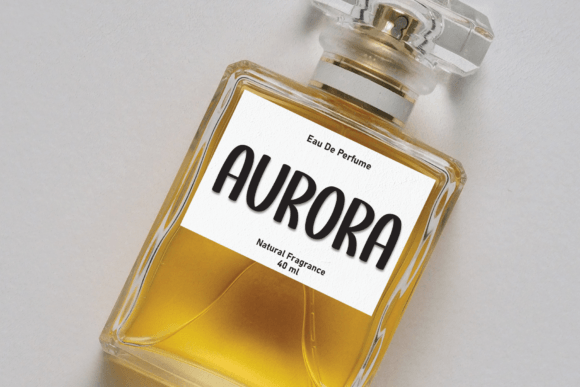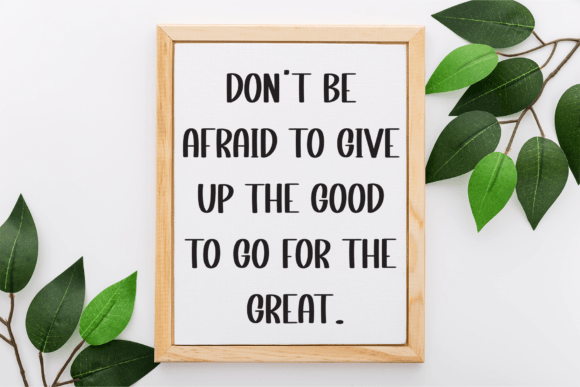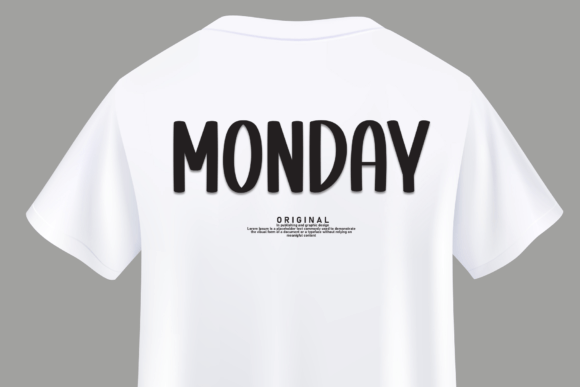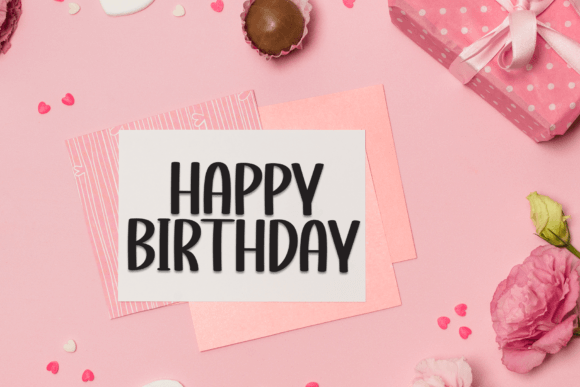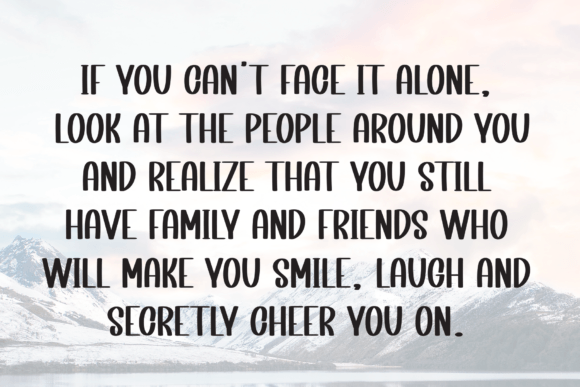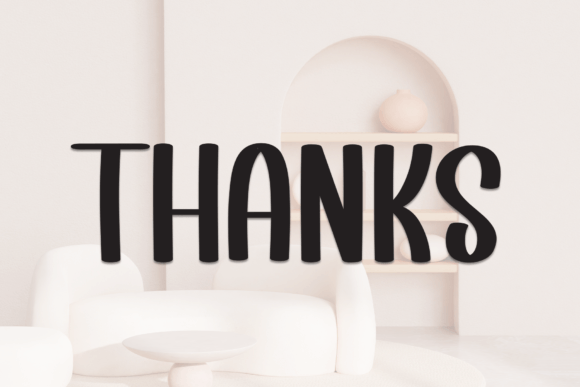
Introduction to Simple Weekend Font
Do you remember that moment when you’re brainstorming ideas for a creative project, and suddenly, the perfect font pops into your mind? It’s like a spark of inspiration that sets off a chain reaction of excitement and possibility. For me, that moment happened when I stumbled upon the Simple Weekend Font – a sweet and friendly handwritten display font that’s perfect for adding a touch of whimsy to any design.
Key Features of Simple Weekend Font
- Transparent background: This font features a transparent background, allowing for seamless integration with any design or creative project.
- High-quality design: Simple Weekend Font is a high-quality design resource, perfect for any creative project requiring a clean and modern look.
- Resolution-independent: This font is designed to be resolution-independent, ensuring it looks great at any size or resolution.
- Unique character set: Simple Weekend Font features a unique character set, including a range of special characters and glyphs.
- Perfect for creative projects: With its clean and modern design, Simple Weekend Font is perfect for any creative project, from logos and branding to digital art and more.
Honest Review: Simple Weekend Font
As a designer, I’m always on the lookout for high-quality fonts to elevate my creative projects. Recently, I stumbled upon the Simple Weekend Font, and I’m excited to share my thoughts on it.
What works well: ✨ This font is perfect for projects that require a clean and minimal aesthetic. Its simple yet elegant design makes it ideal for titles, headings, and body text. The font’s versatility also makes it suitable for various design applications, from brochures to website headers.
Limitations: ⚠️ While the Simple Weekend Font is a great addition to any design resource, it may not be suitable for projects that require bold or dramatic typography. Additionally, some users may find the font too simple, which can limit its creative potential.
Overall, I’m impressed with the Simple Weekend Font. Its high-quality design and versatility make it an excellent choice for designers looking for a reliable and free font resource.
The Simple Weekend Font is ideal for a variety of creative projects, including: